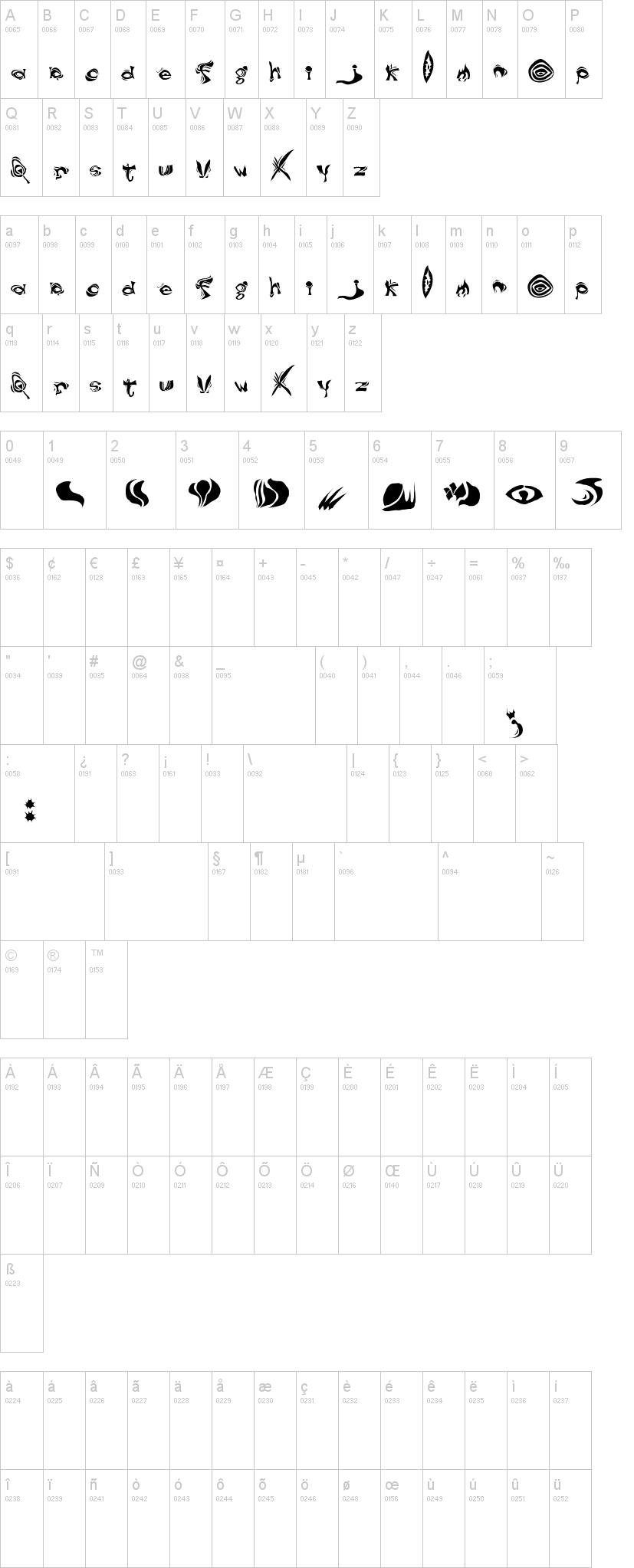
Note of the authorSurreal typeface for use in circumstances where you might need something whimsical and dreamlike. For purchase for commercial use, visit https://www.creativefabrica.com/product/dream-and-fog/